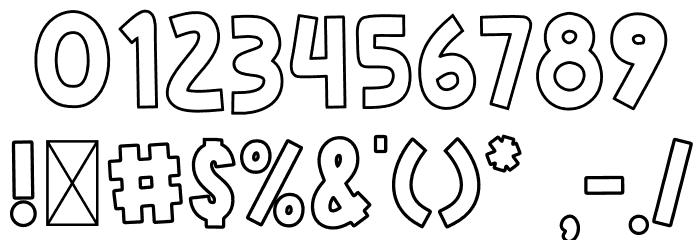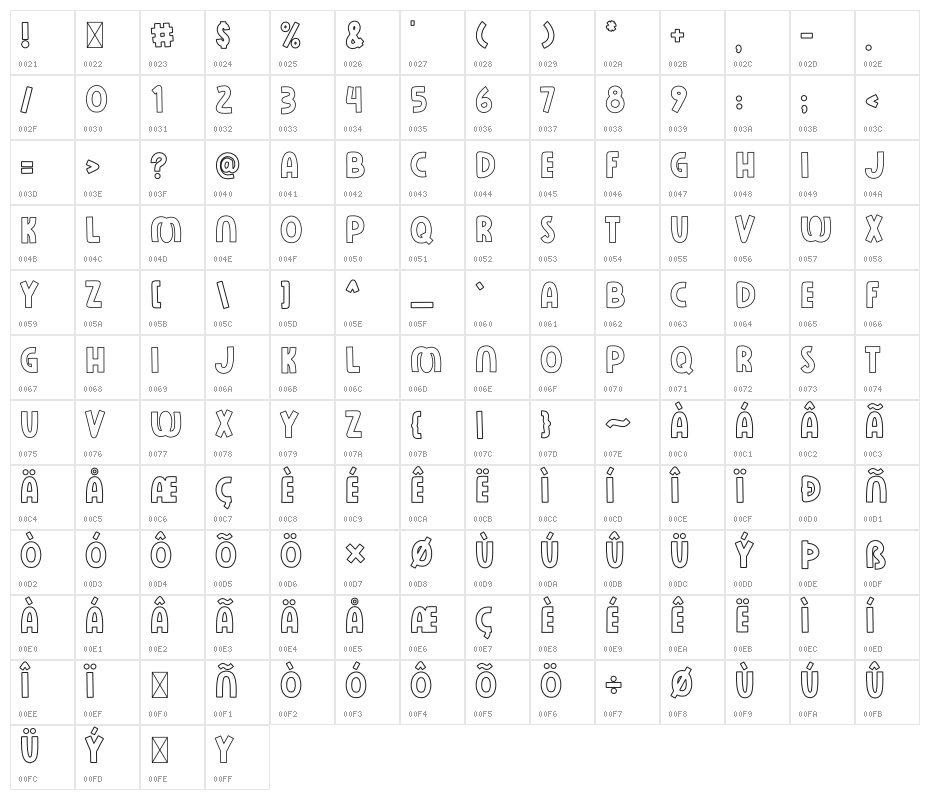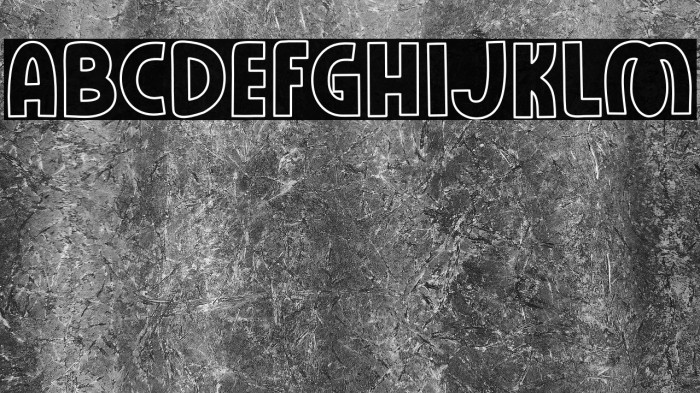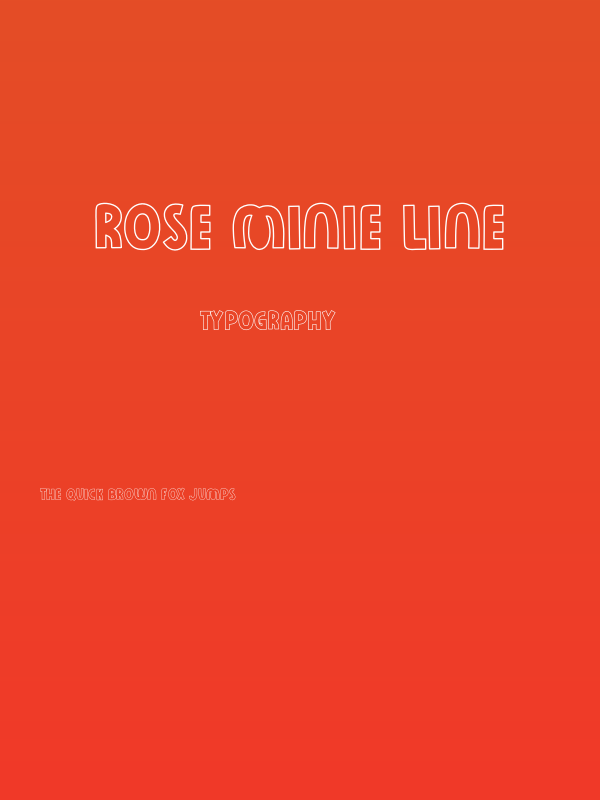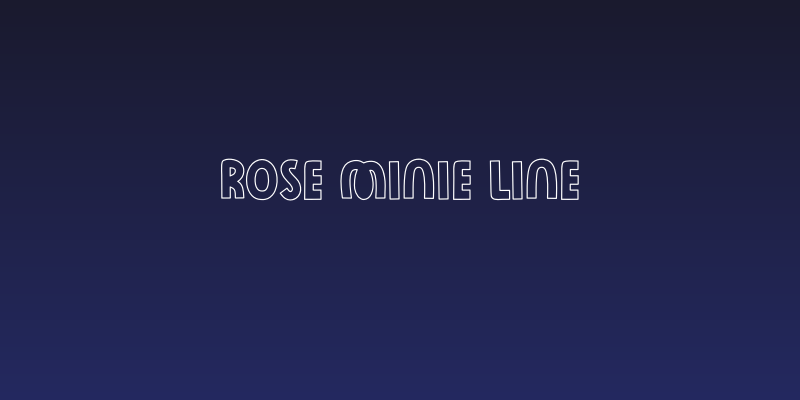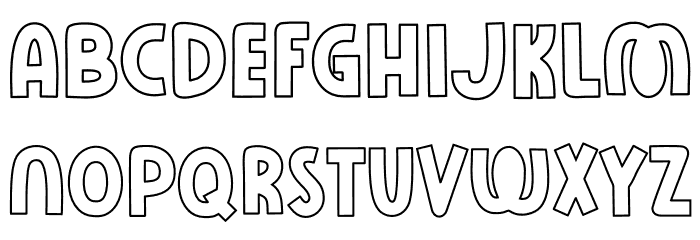
Rose Minie Line Font
Rose Minie Line Description
This font features a playful and bold outline style, characterized by its thick, uniform strokes and rounded edges. The uppercase and lowercase letters maintain a consistent width, creating a harmonious and balanced appearance. The numerals and special characters follow the same design principles, ensuring a cohesive look across all elements. The font's outline nature gives it a unique, eye-catching quality, making it suitable for creative and informal applications. Its boldness and clarity make it easily readable, while the outline adds a touch of whimsy and fun.
| Overall Style | Playful, Fun, Modern |
| Proposed Projects | Ideal for children's books, playful branding, posters, and creative design projects. |